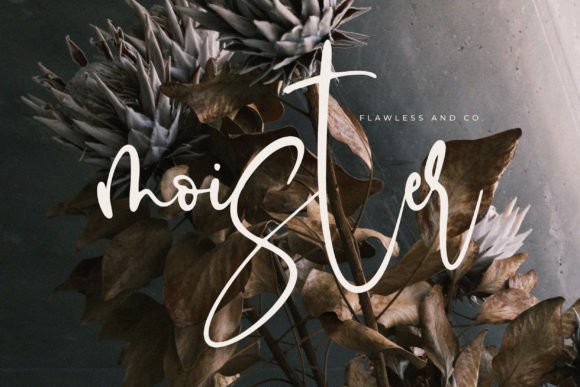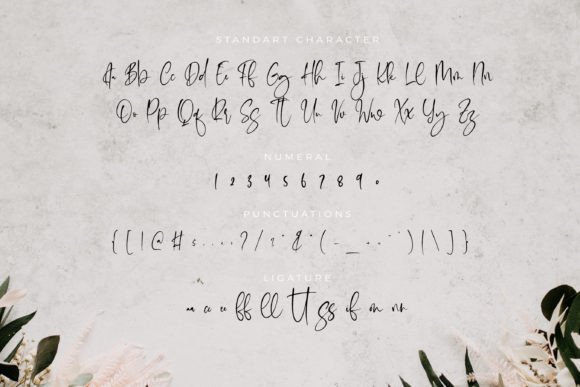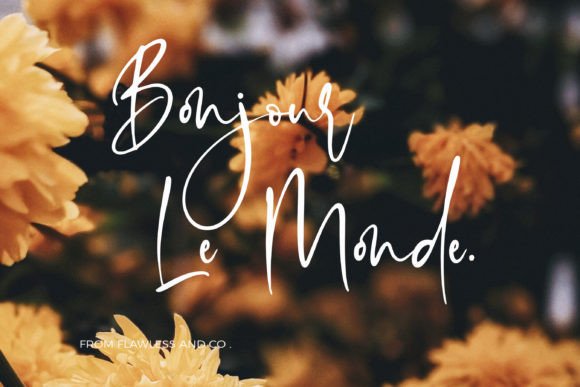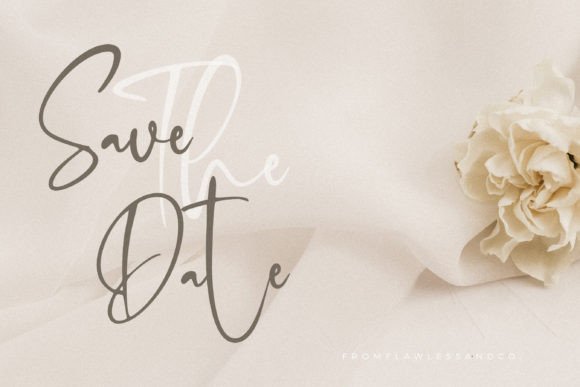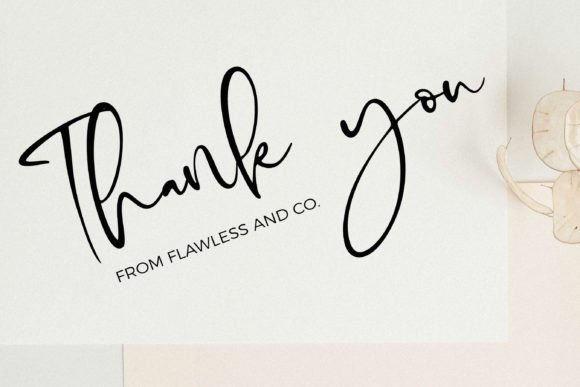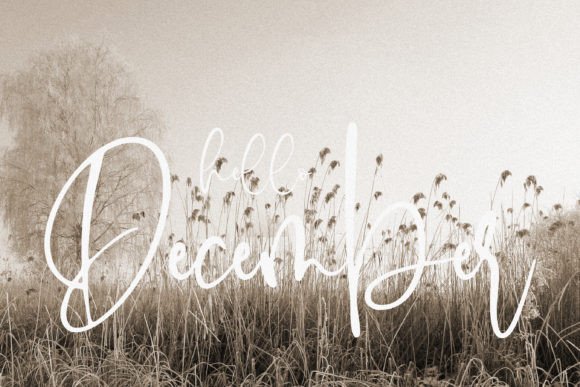
Introduction to Moister Font
Have you ever stumbled upon a design that just speaks to your soul? A beautiful, handwritten font that transports you to a world of endless creativity? For designers, discovering the perfect font can be a game-changer, elevating a project from ordinary to extraordinary. And today, we’re excited to introduce you to the Moister Font – a flowing, elegant script that’s sure to become your new favorite design resource.
With its high-quality, handwritten touch, the Moister Font is perfect for any creative project that requires a touch of sophistication and class. Whether you’re designing a wedding invitation, a business logo, or a social media graphic, this font is sure to add a level of depth and emotion to your design. And the best part? It’s available for a free download, complete with a transparent background, making it easy to use in any design scenario.
Key Features of Moister Font
- Designed with a unique, modern aesthetic that sets it apart from other fonts
- Perfect for use in digital designs, including logos, graphics, and web pages
Honest Review: Moister Font
I recently had the chance to work with the Moister Font, and I must say it’s been a game-changer for my creative projects. This high-quality design resource has a unique, modern aesthetic that adds a touch of sophistication to any design.
What works well: ✨ The Moister Font comes with a free download, making it easily accessible to designers of all levels. The transparent background also makes it easy to overlay on any image or design without worrying about unwanted backgrounds. I’ve used it for a variety of projects, from logos to social media graphics, and it’s been a hit every time.
- Wide range of font styles and weights
- Smooth, modern aesthetic
- Transparent background for easy overlay
However, there are a few limitations: ⚠️ The font doesn’t come in as many languages as I would like, which can be a problem for international projects. Additionally, the font files can be quite large, which may slow down your design process.
Overall, I’m really impressed with the Moister Font. It’s a high-quality design resource that’s easy to use and adds a touch of sophistication to any design. If you’re looking for a modern, unique font for your creative project, I highly recommend giving it a try.
The Moister Font is suitable for a wide range of applications, including:
- Graphic design projects.
- Marketing materials.
- Presentations and documents.
Alternatives to Moister Font
1. Elegant Font
The Elegant Font is a high-quality, elegant script font perfect for creating a sophisticated and creative project. It features a transparent background, making it ideal for designs where a clean and minimalist look is desired. When to use: wedding invitations, luxury branding, and high-end packaging. Comparison to Moister Font: While both fonts have a similar elegant feel, the Elegant Font has a more refined and delicate look, making it suitable for more formal designs.
2. Flourish Font
The Flourish Font is a beautiful, hand-drawn font that adds a touch of whimsy and creativity to any design. It’s a great resource for designers looking to add a personal touch to their project. When to use: creative illustrations, children’s books, and playful branding. Comparison to Moister Font: The Flourish Font has a more playful and dynamic feel compared to Moister Font, making it perfect for designs that require a lot of energy and movement.